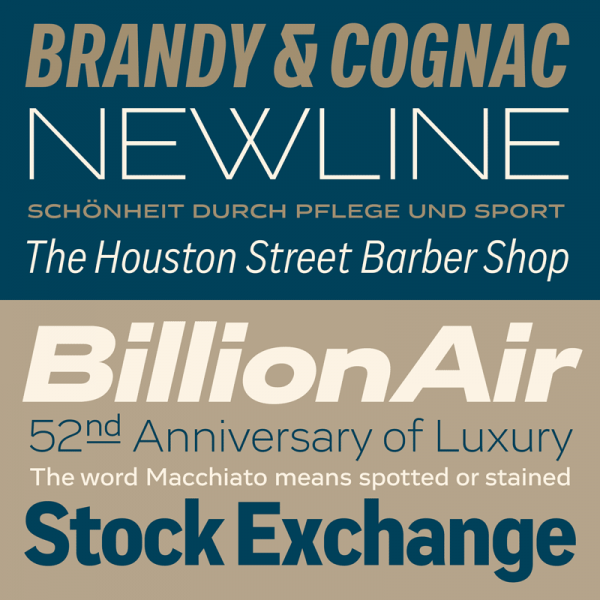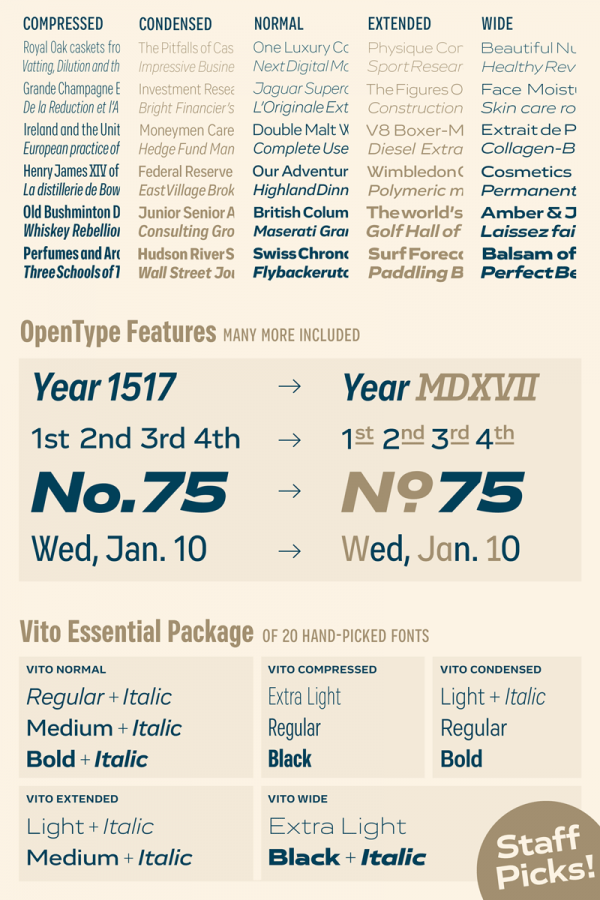
Discover the Vito font family, a modern sans serif with 60 styles from foundry Typejockeys.
The Vito font family is a fresh release from Vienna, Austria based type foundry Typejockeys. The typeface has been designed by Thomas Gabriel from 2014 – 2015. It’s a modern and sturdy sans serif that comes in 60 styles (consisting of 5 widths in 6 weights plus matching Italics for each weight).
Vito, a versatile font family that offers countless possibilities.
This wide range of styles offers many typographic possibilities. You can use the Vito fonts for magazines, books, packaging design, signage, branding projects or movie titles. Vito’s many OpenType features allow additional freedom for your creativity. The complete Vito font family is available on MyFonts as both Webfont and Desktop font.